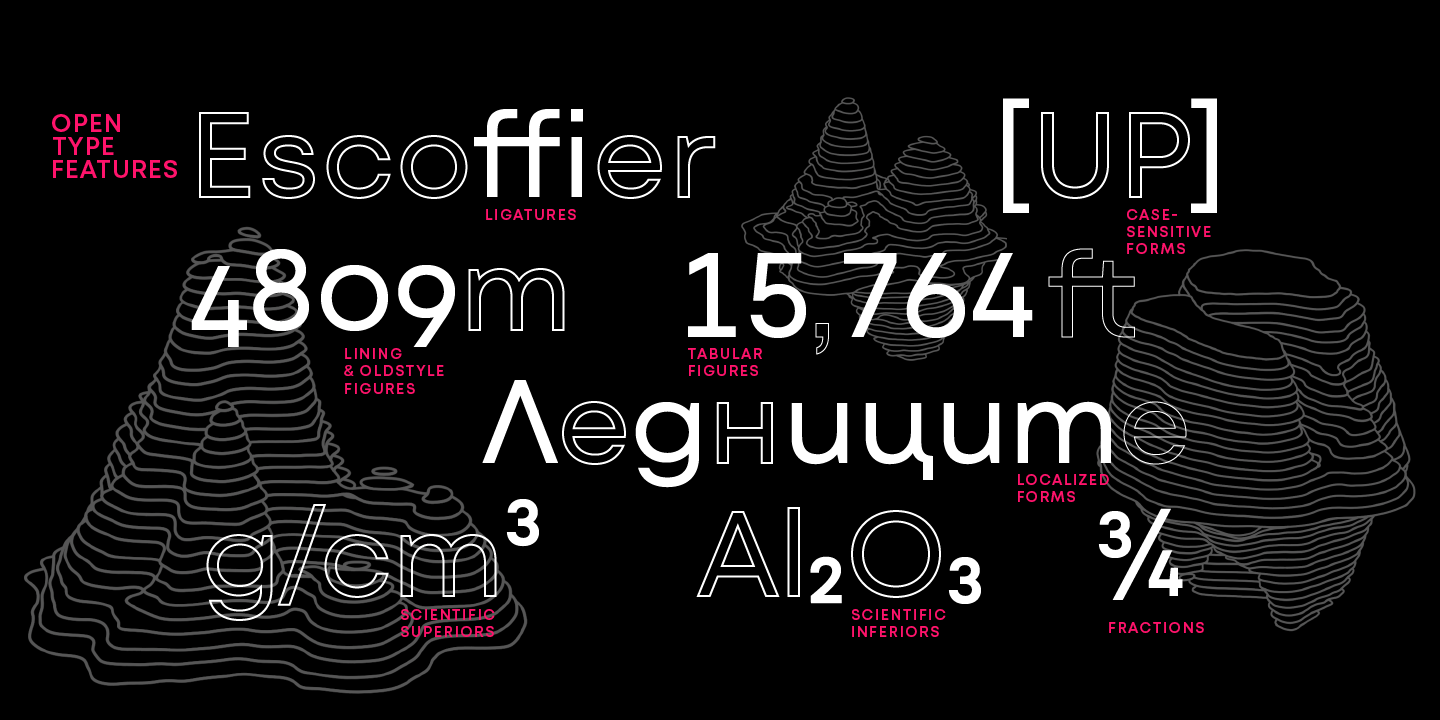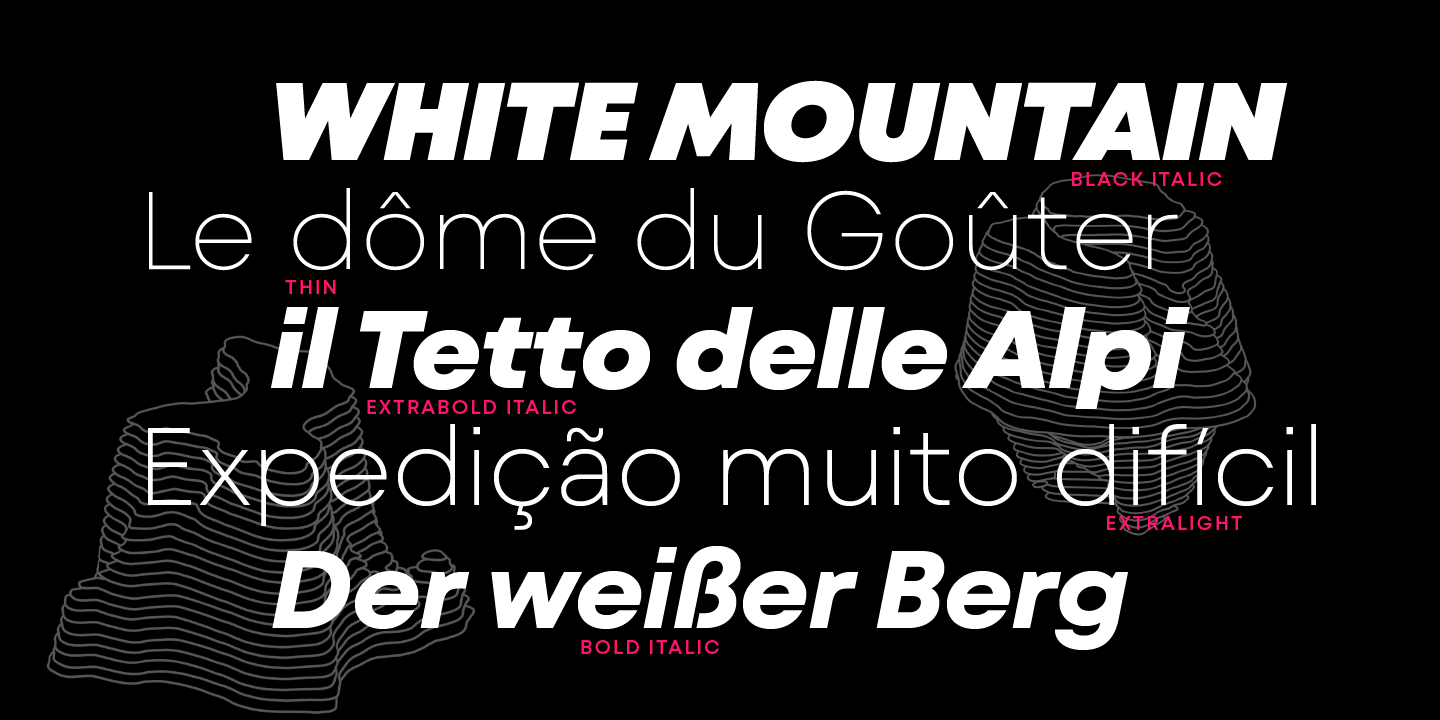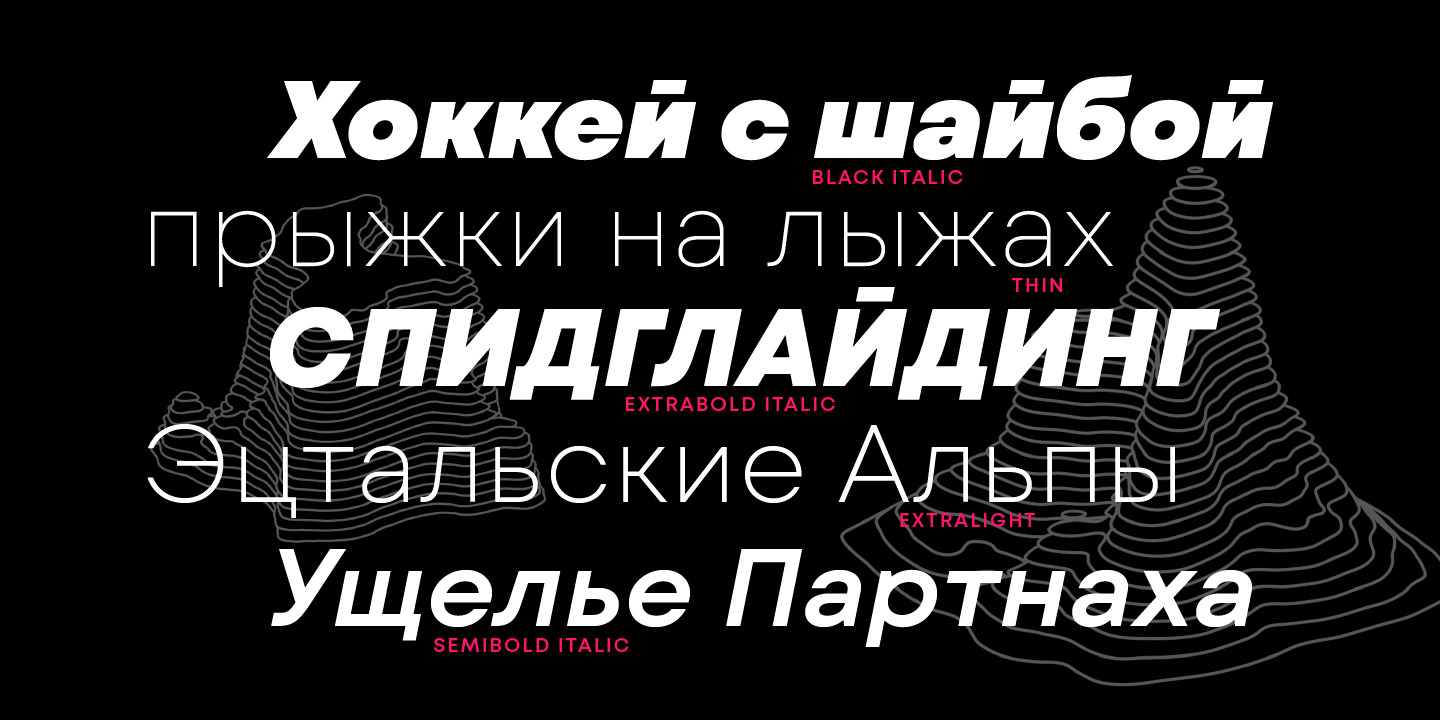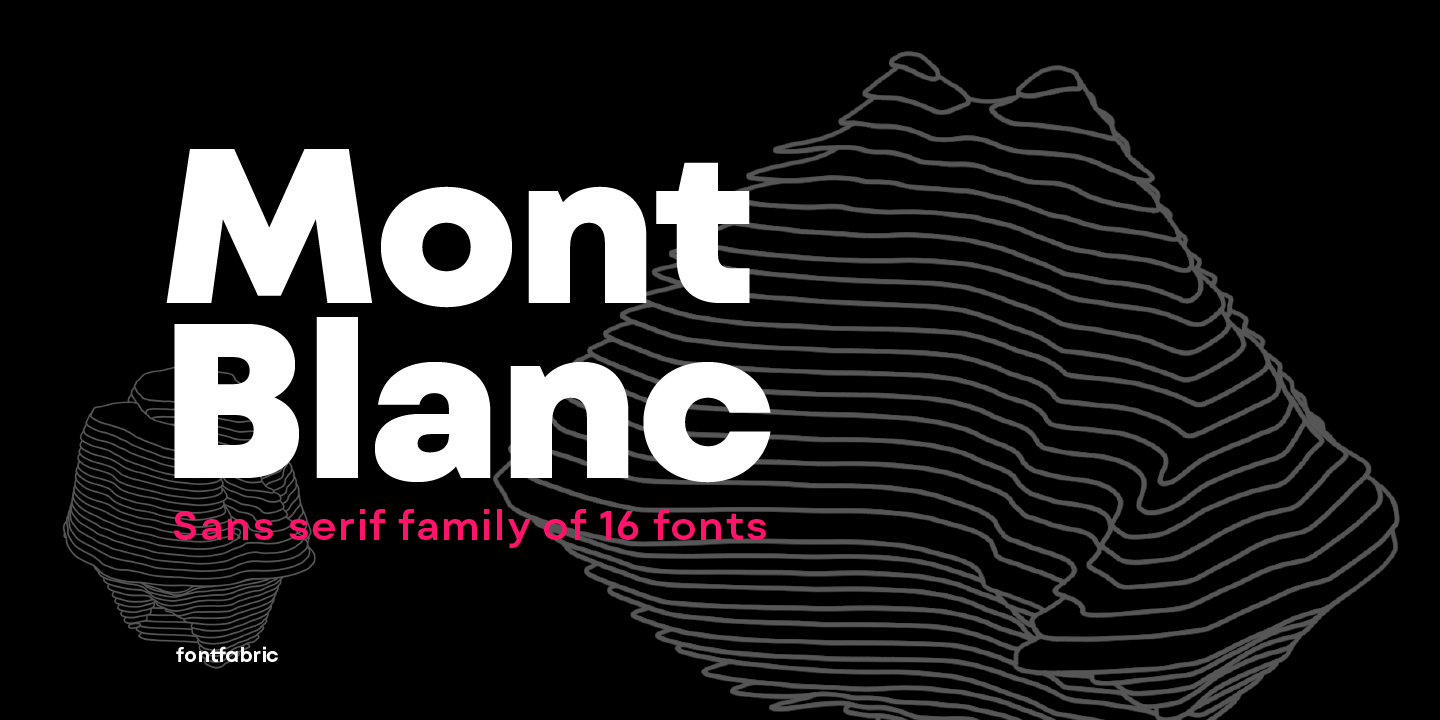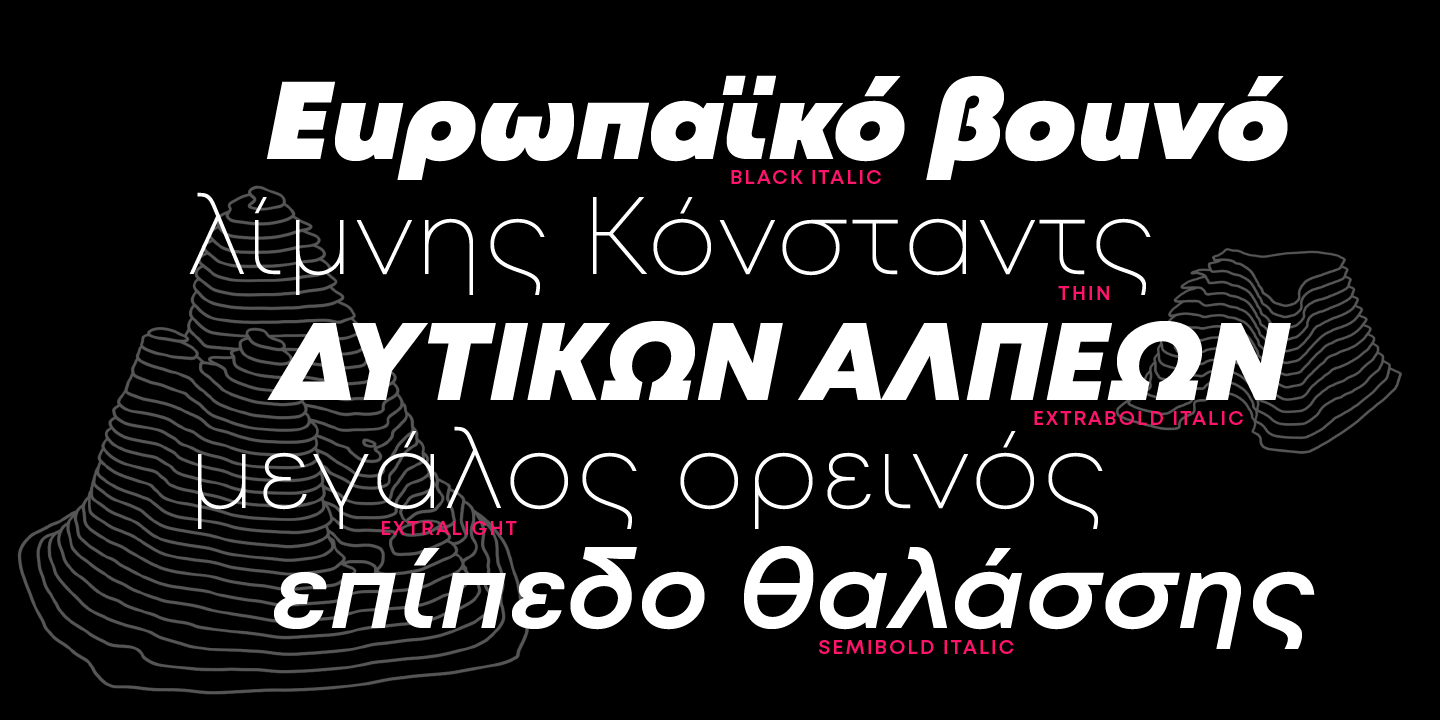
A new type giant emerges taking after the legendary geometric sans serif Mont! Mont Blanc elevates all prized unique details of Mont and translates them into an independent flawless text font family. This type prodigy comes with heaping legibility improvements…